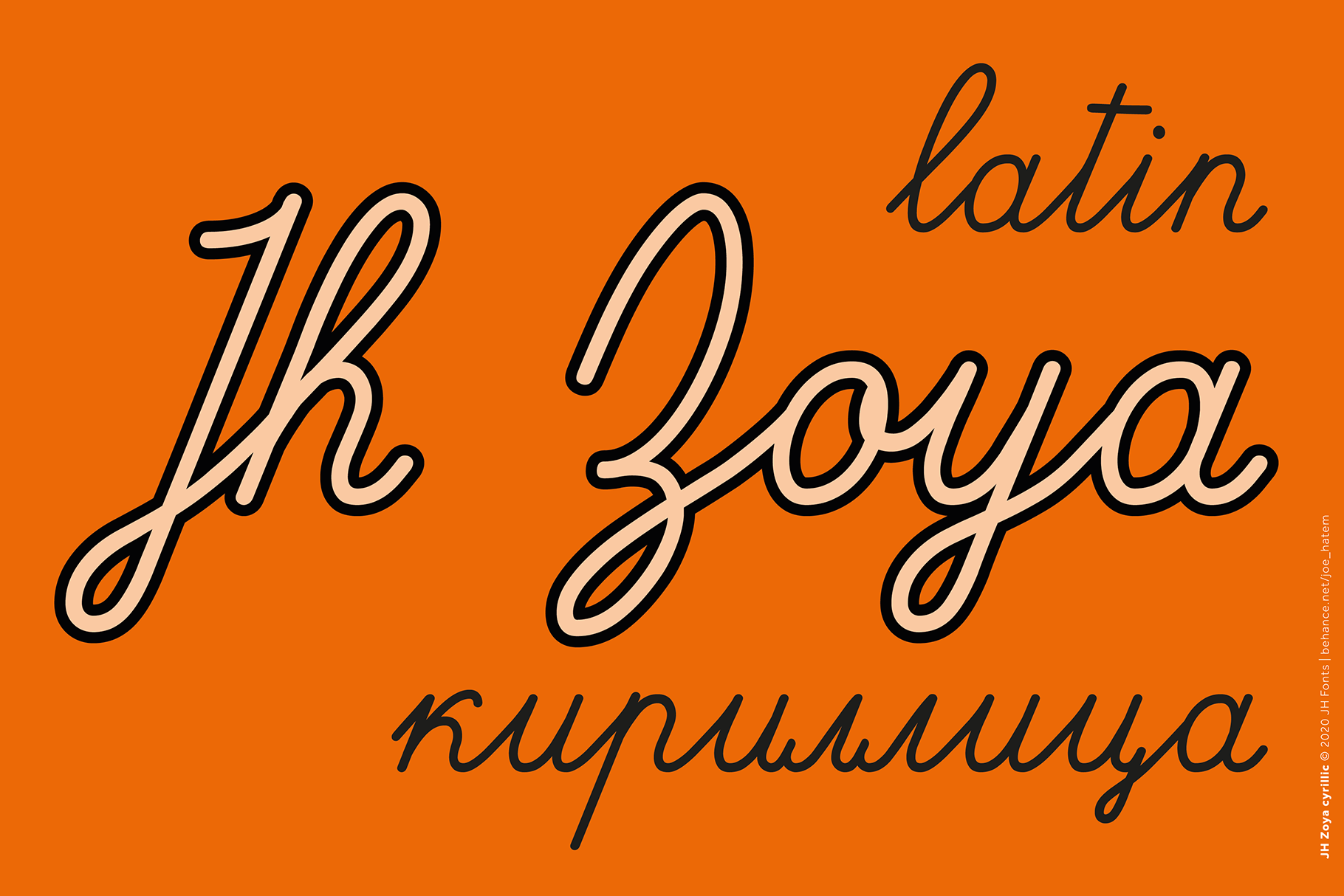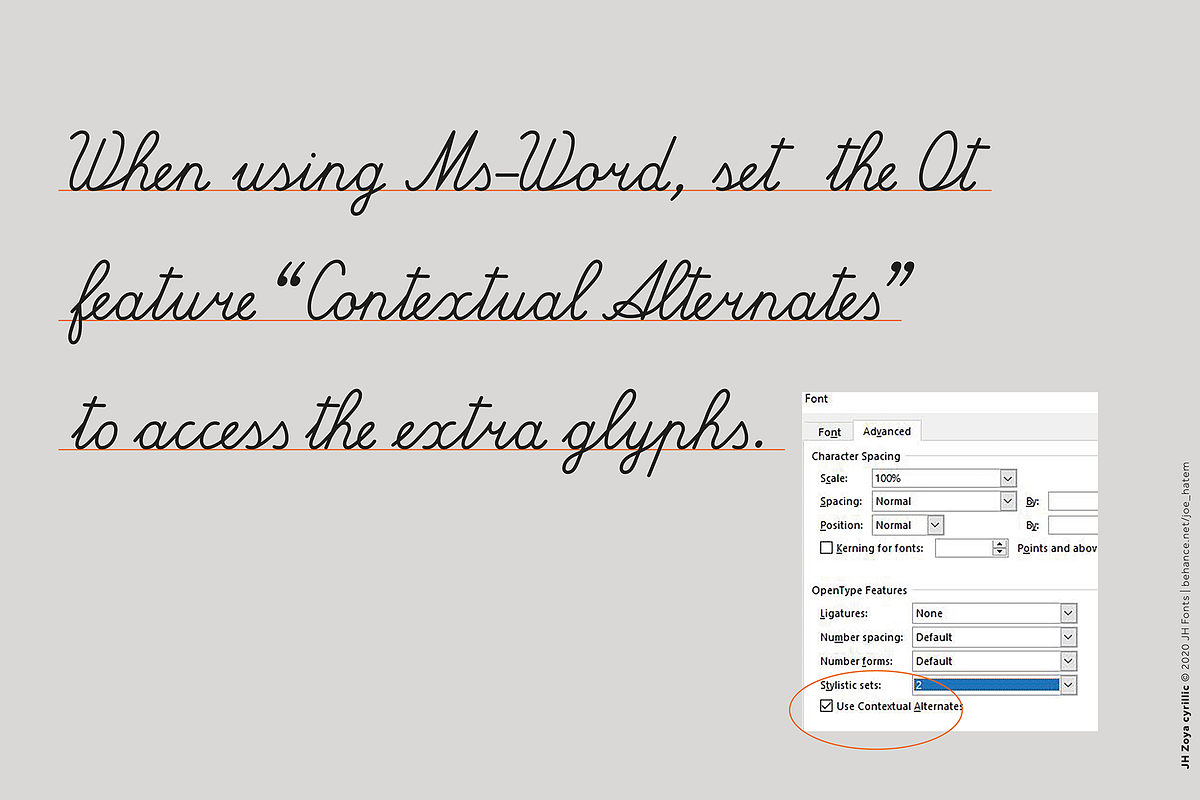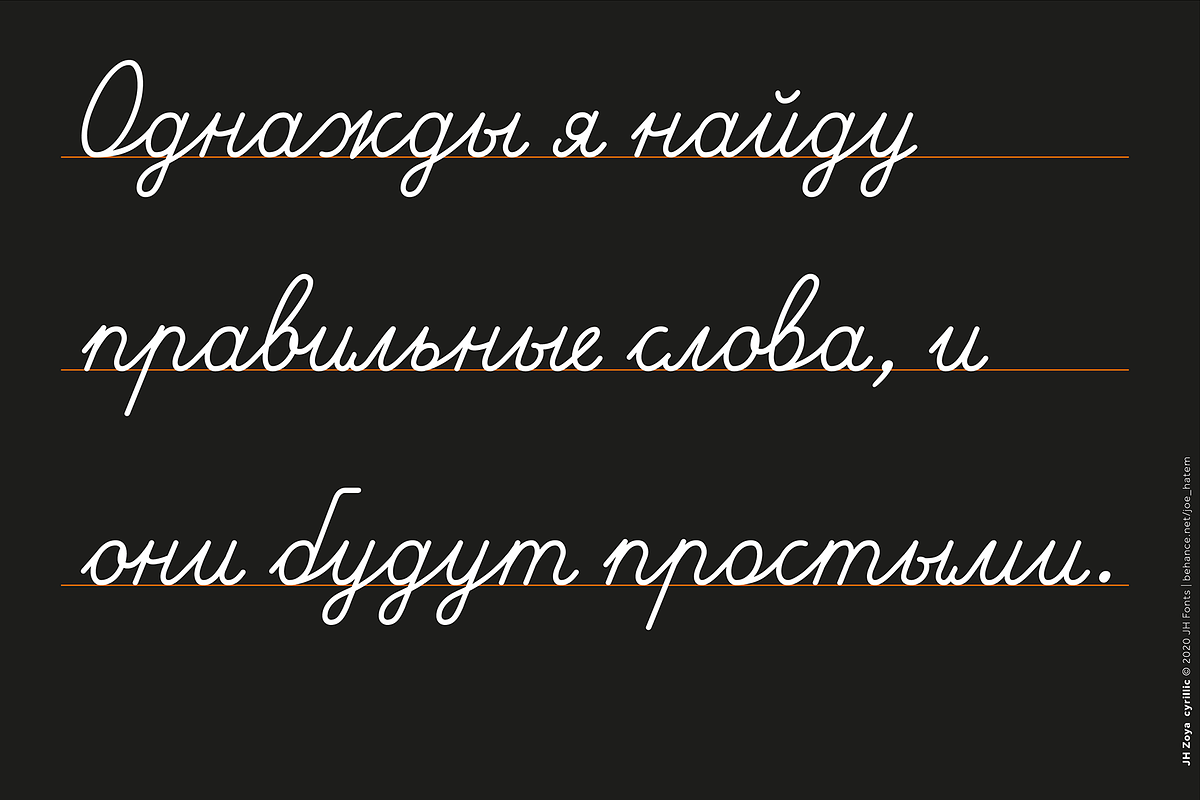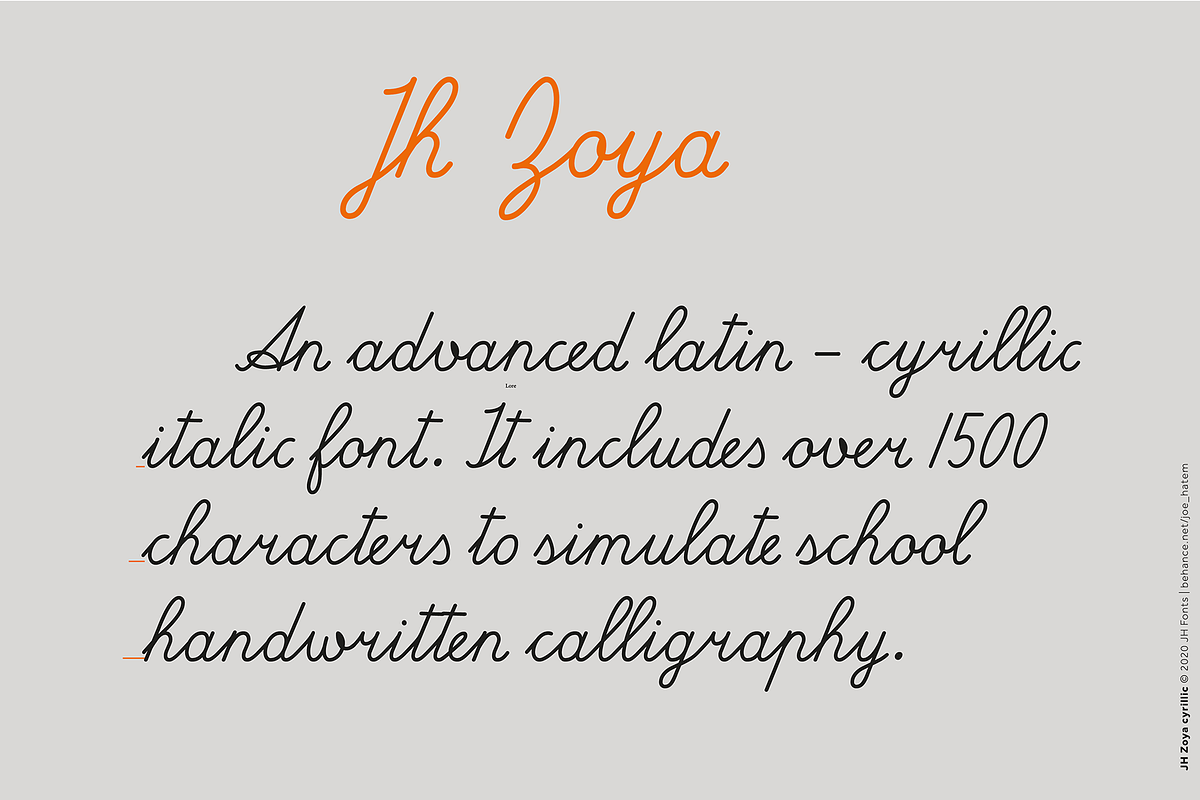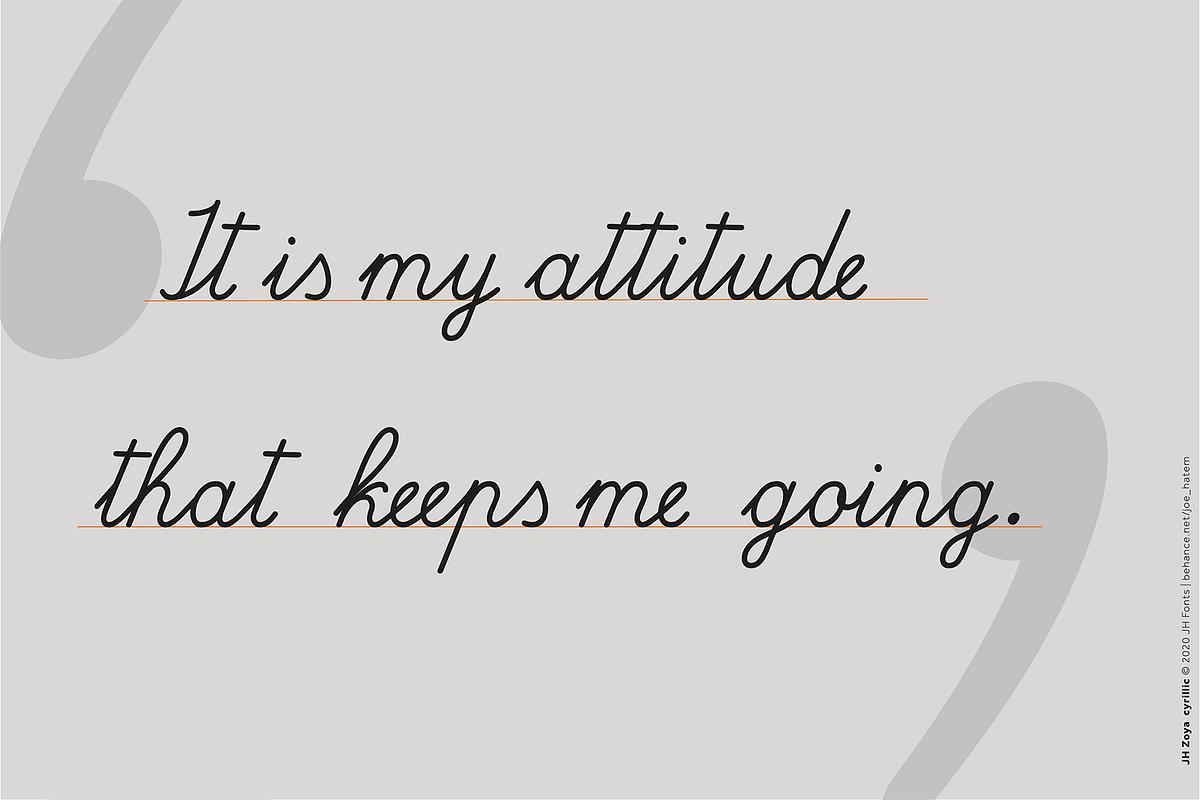
JH Zoya cyrillic font
JH Zoya is an advanced Latin and Cyrillic script. It includes over 1500 characters to simulate school handwritten calligraphy. продвинутый кириллический курсивный шрифт. Он включает в себя множество персонажей для имитации школьной рукописной каллиграфии.